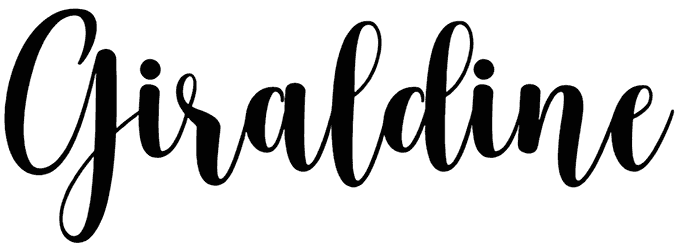
Giraldine Font
Giraldine font is like a dance for your eyes, where every letter spins beautifully. This calligraphic font will create a rhythm on the page that draws every eye in and flows well on the paper.
With this script font, you can turn every word into a masterpiece and evoke emotions and beauty. So, whether it’s a wedding invitation or a simple note for a loved one, you can make the most of the power of this font to express your feelings sincerely.